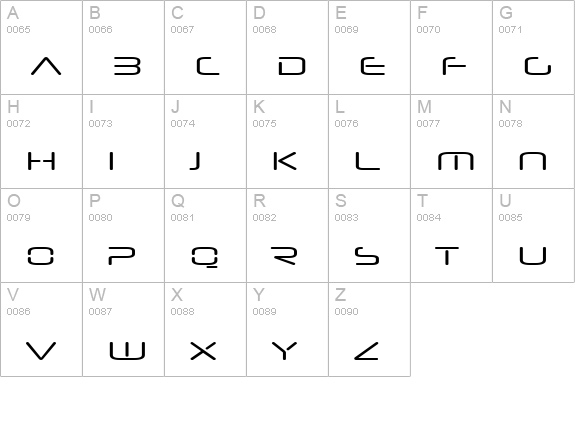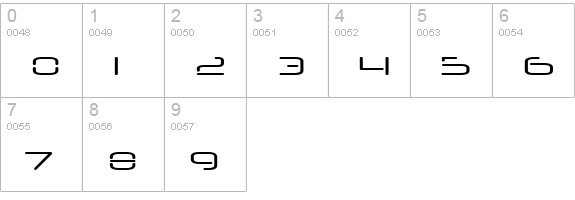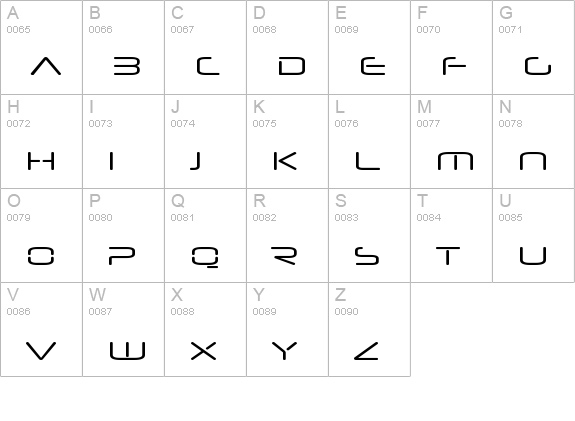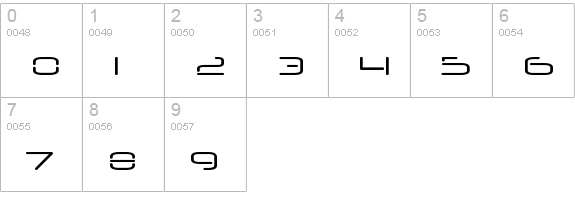
Neuropol Nova Xp font is a sleek and futuristic typeface that exudes a sense of modernity and innovation. Its sharp angles and geometric shapes give it a cutting-edge aesthetic that is perfect for projects requiring a contemporary feel. The font's bold yet elegant design makes it ideal for use in a wide range of applications, from digital designs to print materials. What makes Neuropol Nova Xp font even more appealing is that it is available for free download at FontsMarket.com. This means that you can easily access this versatile and eye-catching font without having to break the bank. Whether you are a designer looking to add a touch of sophistication to your work or a business owner in need of a fresh look for your branding, Neuropol Nova Xp font is sure to impress with its modern style and accessibility.